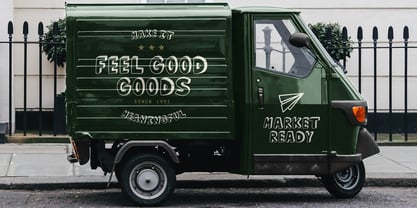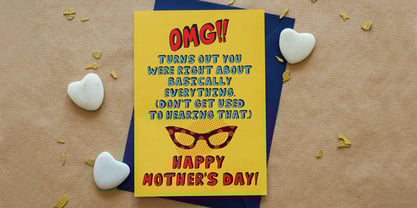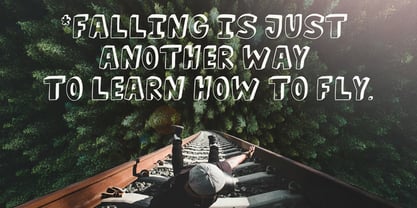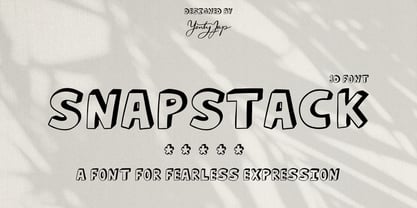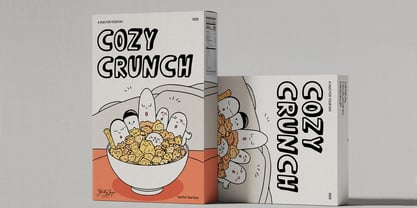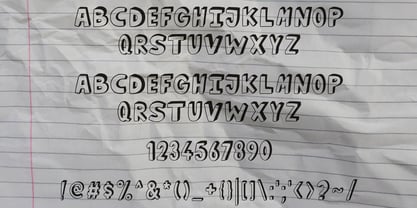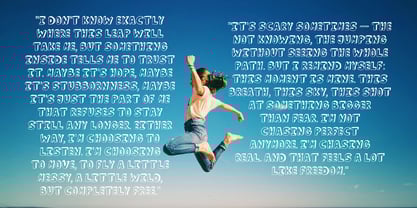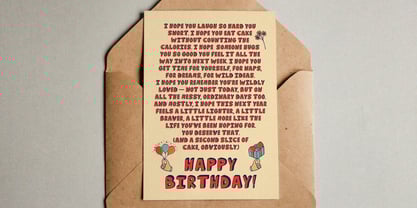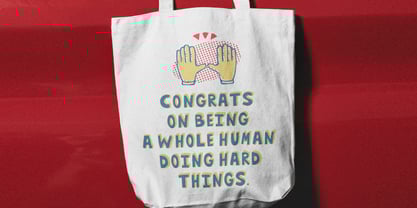
YJC Snapstack
by Yenty Jap Co
The YJC Snapstack Font Family was designed by Yenty Jap and published by Yenty Jap Co. YJC Snapstack contains 1 styles. More about this family
Meet YJC Snapstack — a bold, lively font made to celebrate connection, creativity, and a little bit of everyday magic. Handcrafted for makers, content creators, and small business dreamers, Snapstack helps you say it all — with a voice that feels as real and vibrant as you are.
Every letter is packed with personality, making it easy to create designs that feel fresh, expressive, and totally unforgettable.
1. A full set of uppercase and lowercase letters with multilingual support
2. Numbers, punctuation, and symbols
Perfect for:
• Art market signage and stall displays
• Social media graphics and content creation
• Greeting cards and stationery design
• Branding projects that need a bold personality
• Etsy shops, product packaging, and small business promos
• Book covers, zines, and creative publishing projects
• Event materials, invitations, and announcements
Snap it, stack it, share it — Snapstack is here to help you create work that connects.